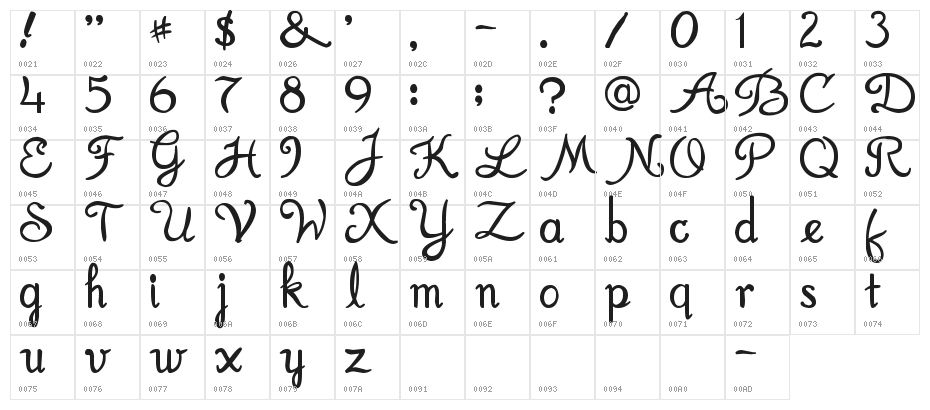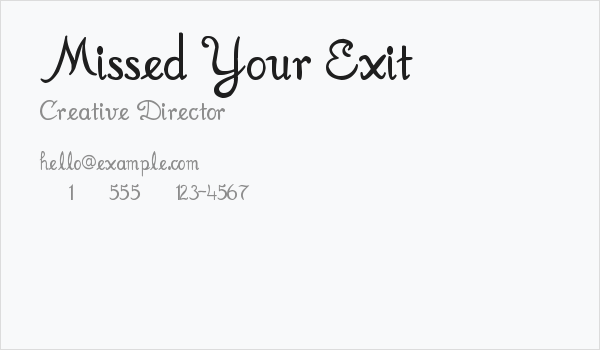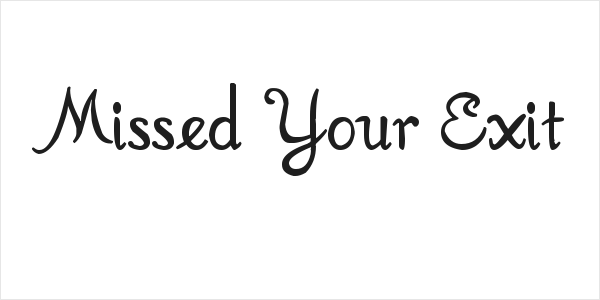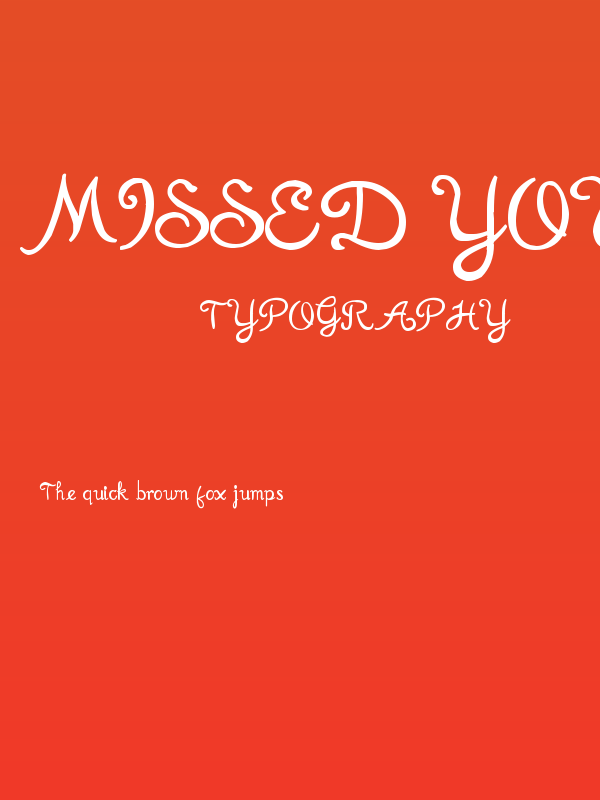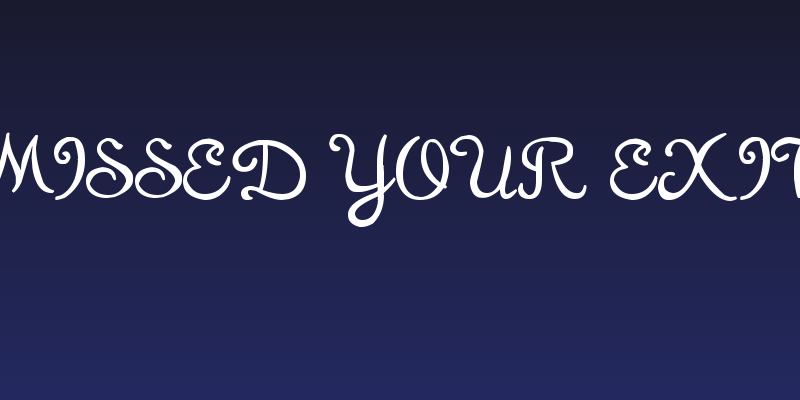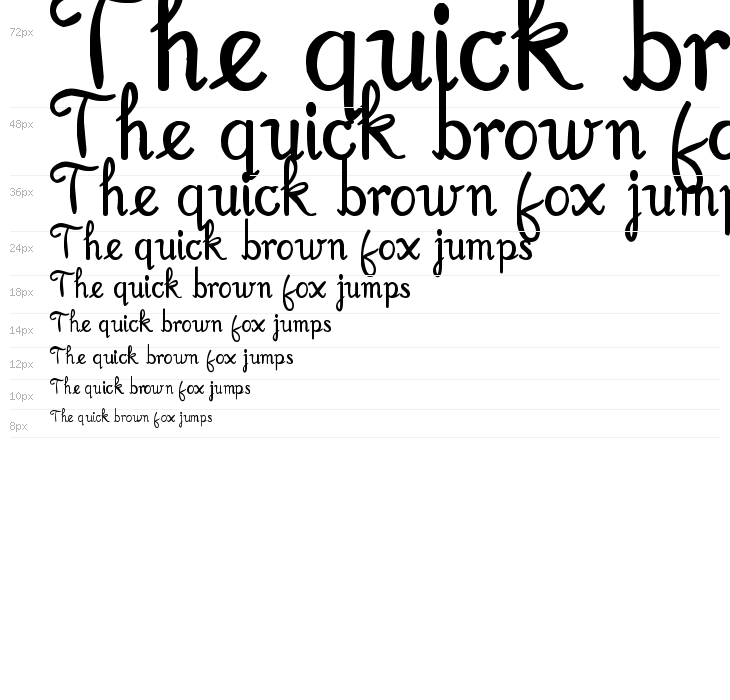
Missed Your Exit Font
Missed Your Exit Description
This font features a playful and whimsical style, combining elements of both script and decorative display fonts. The uppercase letters are elegantly curved with a slight slant, giving them a dynamic and flowing appearance. The lowercase letters maintain a more structured form, yet still carry a sense of movement and fluidity. The numerals are bold and clear, ensuring readability while maintaining the font's overall playful aesthetic. Special characters are creatively designed, adding to the font's unique charm. This font is ideal for projects that require a touch of creativity and fun.
| Use Case | Headlines, Logos, Creative Projects |
| Proposed Projects | Great for greeting cards, invitations, playful branding, and creative posters. |